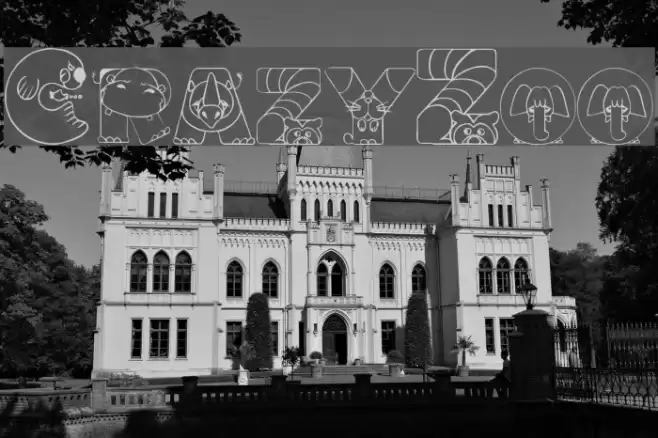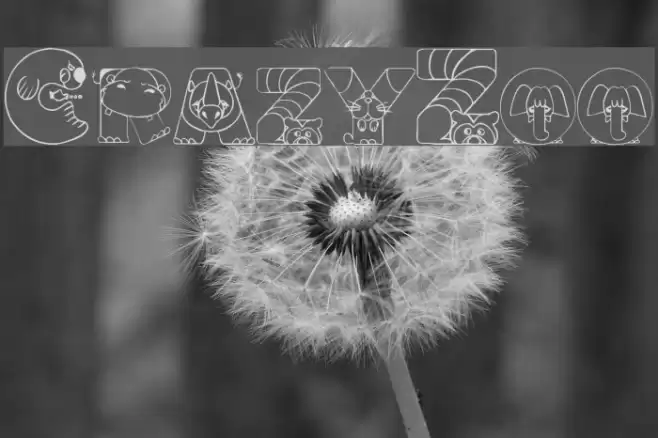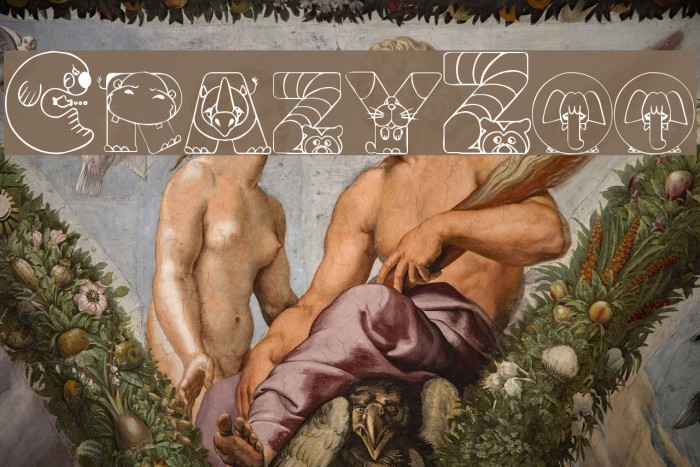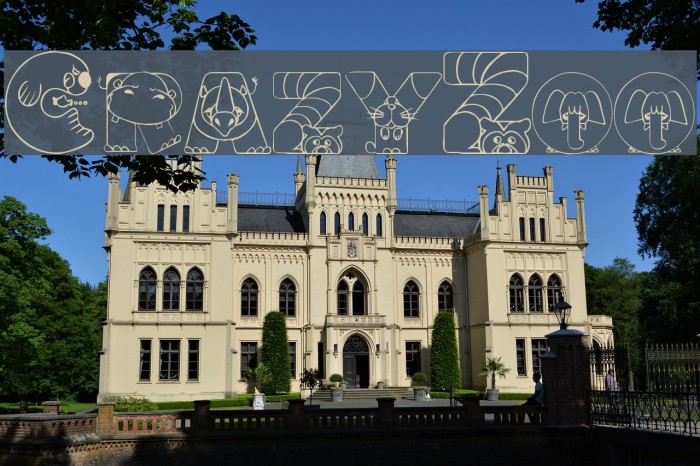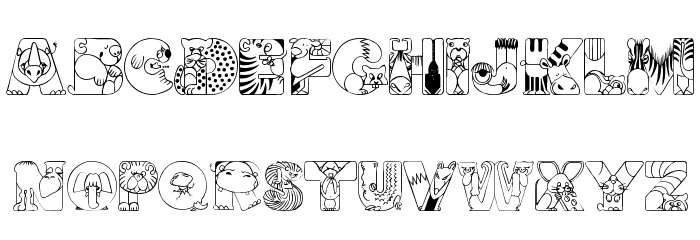
CrazyZoo Font
CrazyZoo Description
This playful and whimsical font features a unique design where each letter is creatively integrated with animal illustrations. The uppercase letters are filled with detailed animal motifs, making each character a small piece of art. The style is decorative and highly imaginative, perfect for capturing attention and adding a fun, lively element to any project. The font is characterized by its bold outlines and intricate patterns within each letter, providing a sense of depth and texture. The absence of lowercase letters and numbers emphasizes its use as a display font, focusing on visual impact rather than readability. The special characters are represented by solid rectangles, suggesting a focus on the artistic representation of the alphabet rather than functional typography.
A decorative font with animal-themed uppercase letters, ideal for playful designs from Decorative fonts.
- Proposed Projects: Ideal for children's books, playful posters, educational materials, and creative branding projects.
- Overall Style: Playful, Whimsical, Artistic